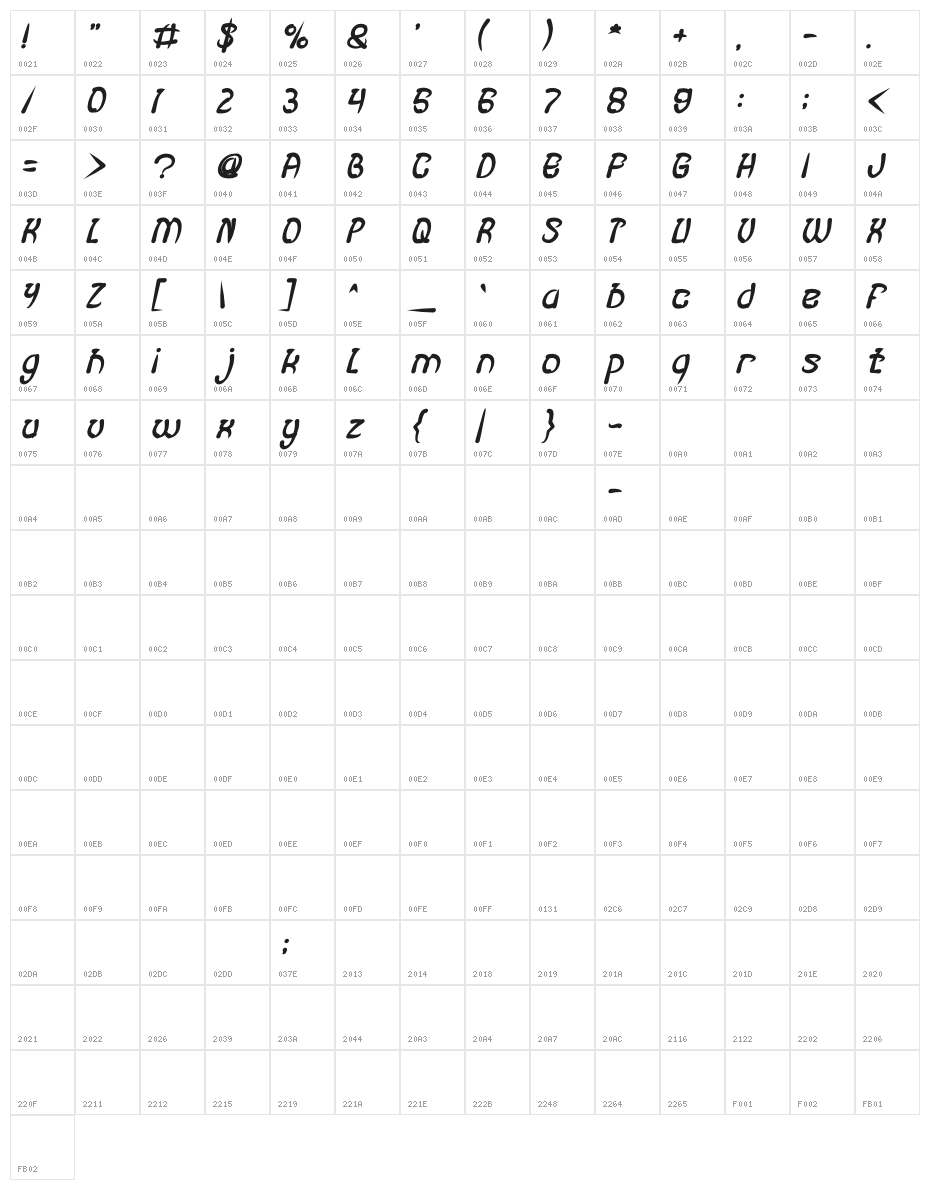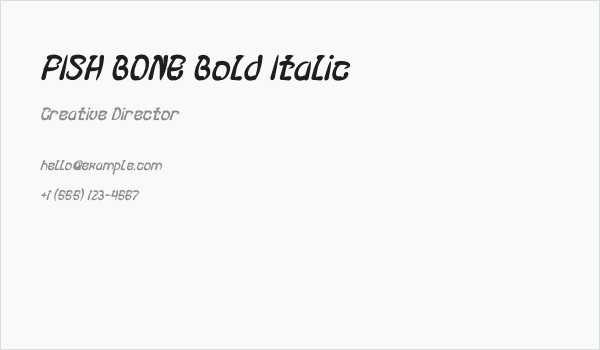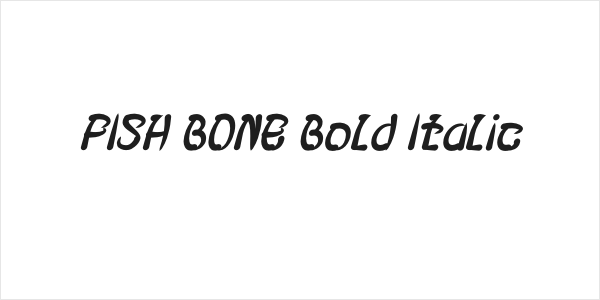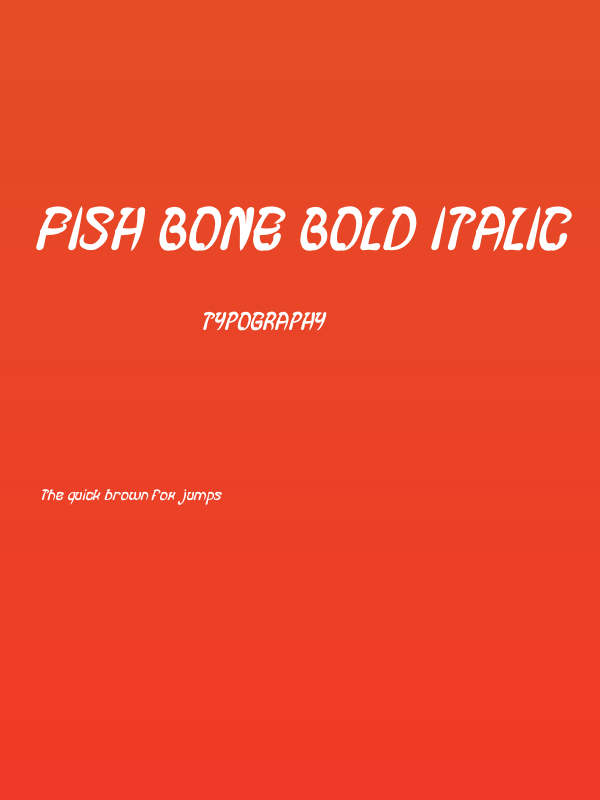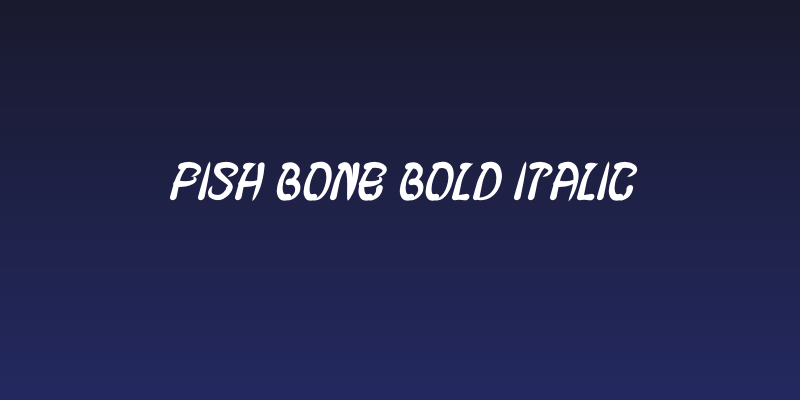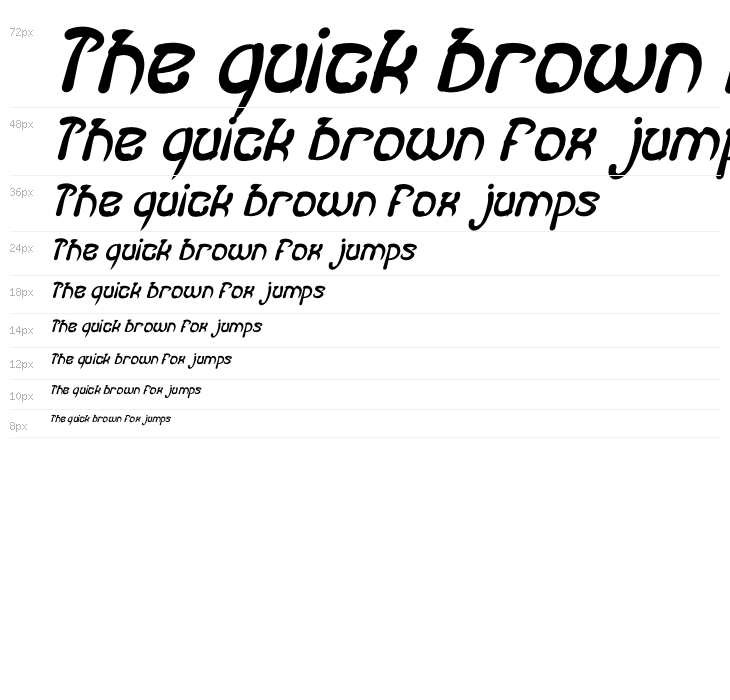
FISH BONE Bold Italic Font
FISH BONE Bold Italic Description
This font features a bold and italicized style with a playful, decorative flair. The characters are rounded and exhibit a flowing, cursive-like appearance, giving them a dynamic and energetic feel. The strokes are thick and consistent, providing a strong visual impact. The uppercase letters maintain a uniform height, while the lowercase letters have a slightly smaller size, contributing to a balanced and cohesive look. The numbers and special characters follow the same stylistic approach, ensuring consistency across all elements. This font is well-suited for projects that require a bold and eye-catching design, such as logos, headlines, and posters.
| Proposed Projects | Ideal for logos, headlines, posters, and any design needing a bold, dynamic touch. |